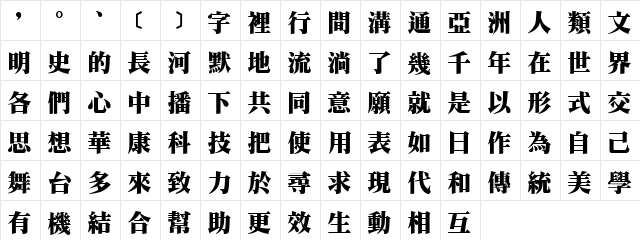
DFMingUBold1B Regular
Design Context for DFMingUBold1B Typeface
DFMingUBold1B is a composed and adaptable typeface that performs quietly and consistently across a wide range of design contexts. The heavy weight commands attention and anchors typographic hierarchies.